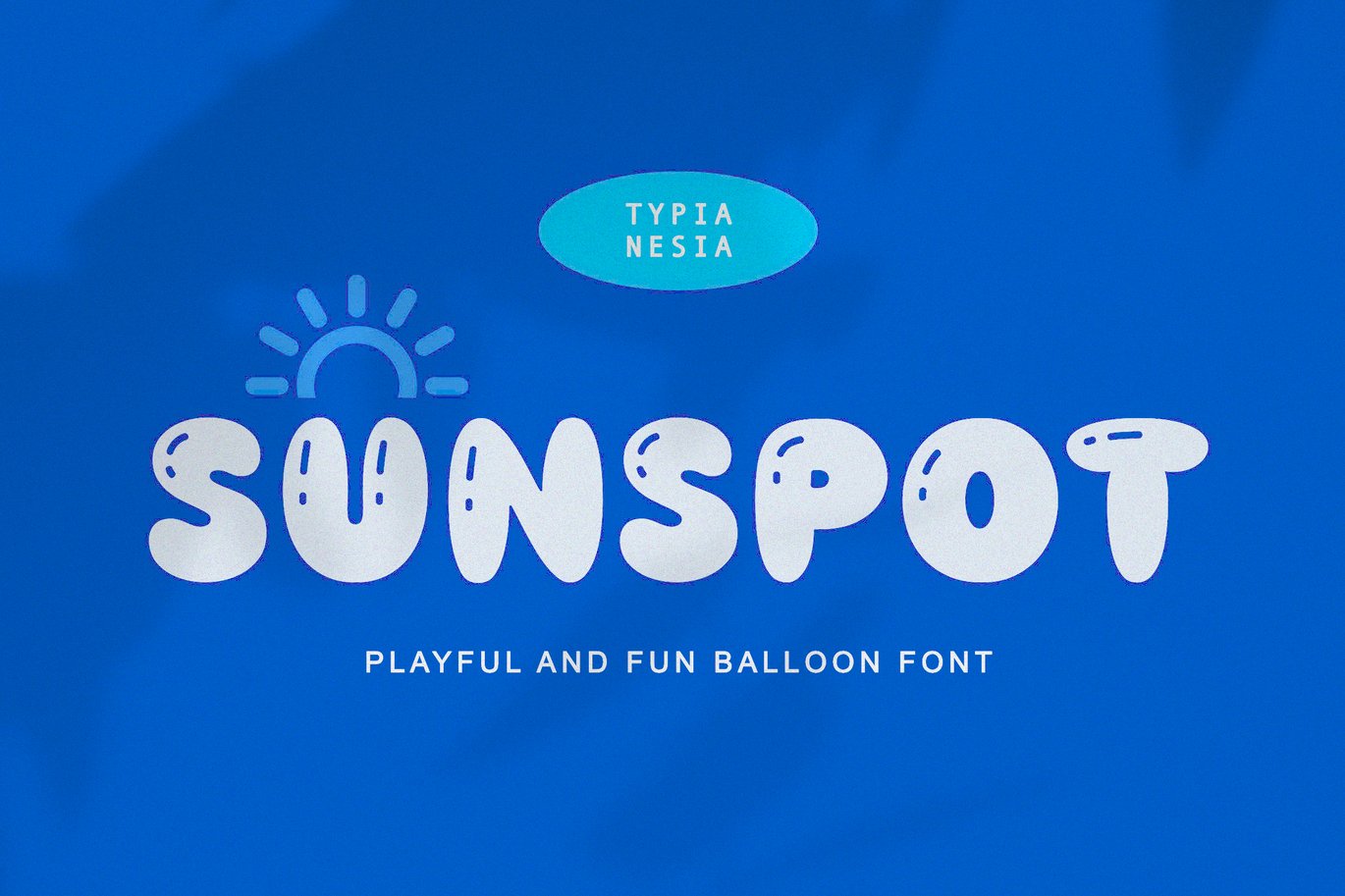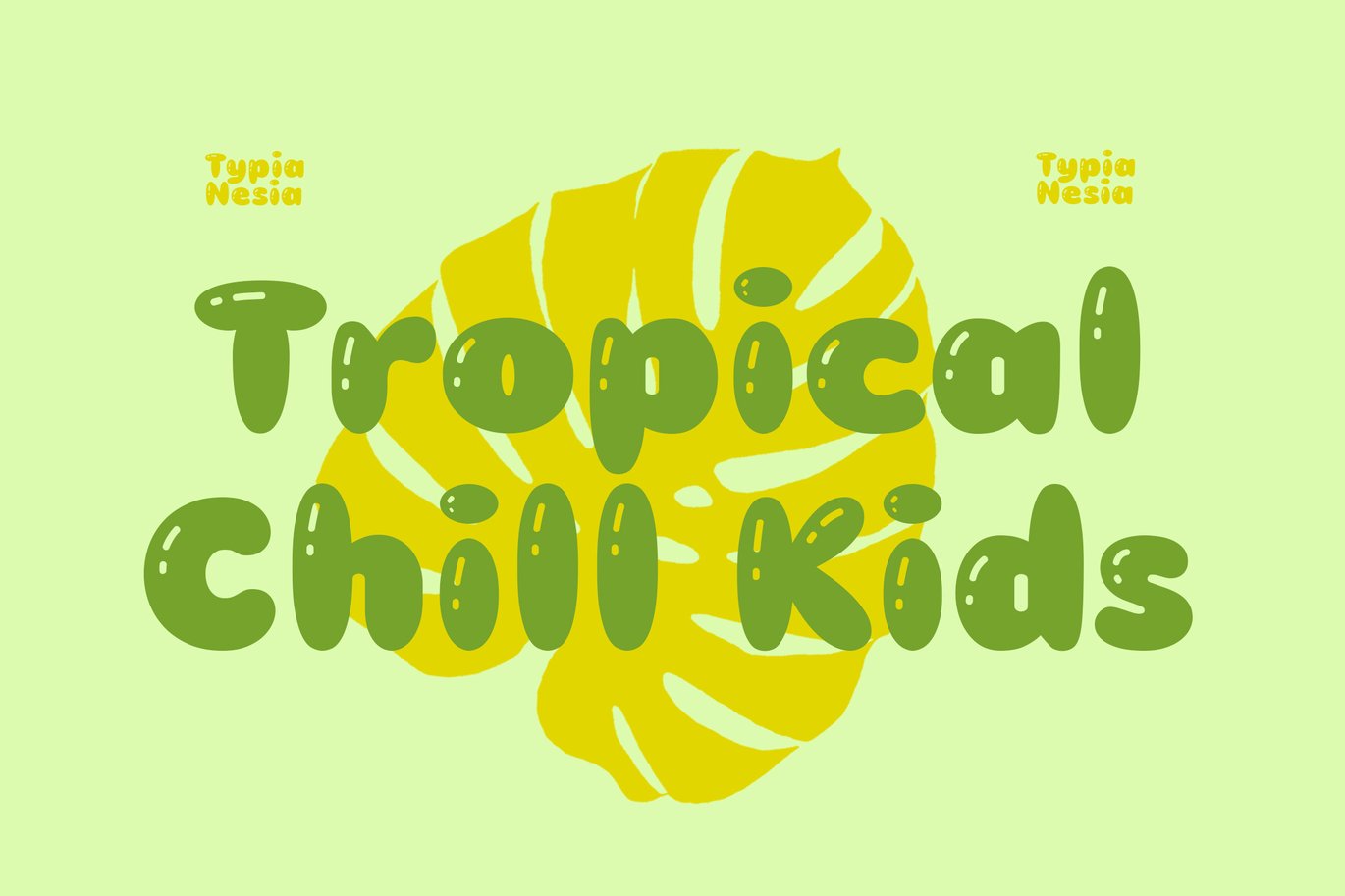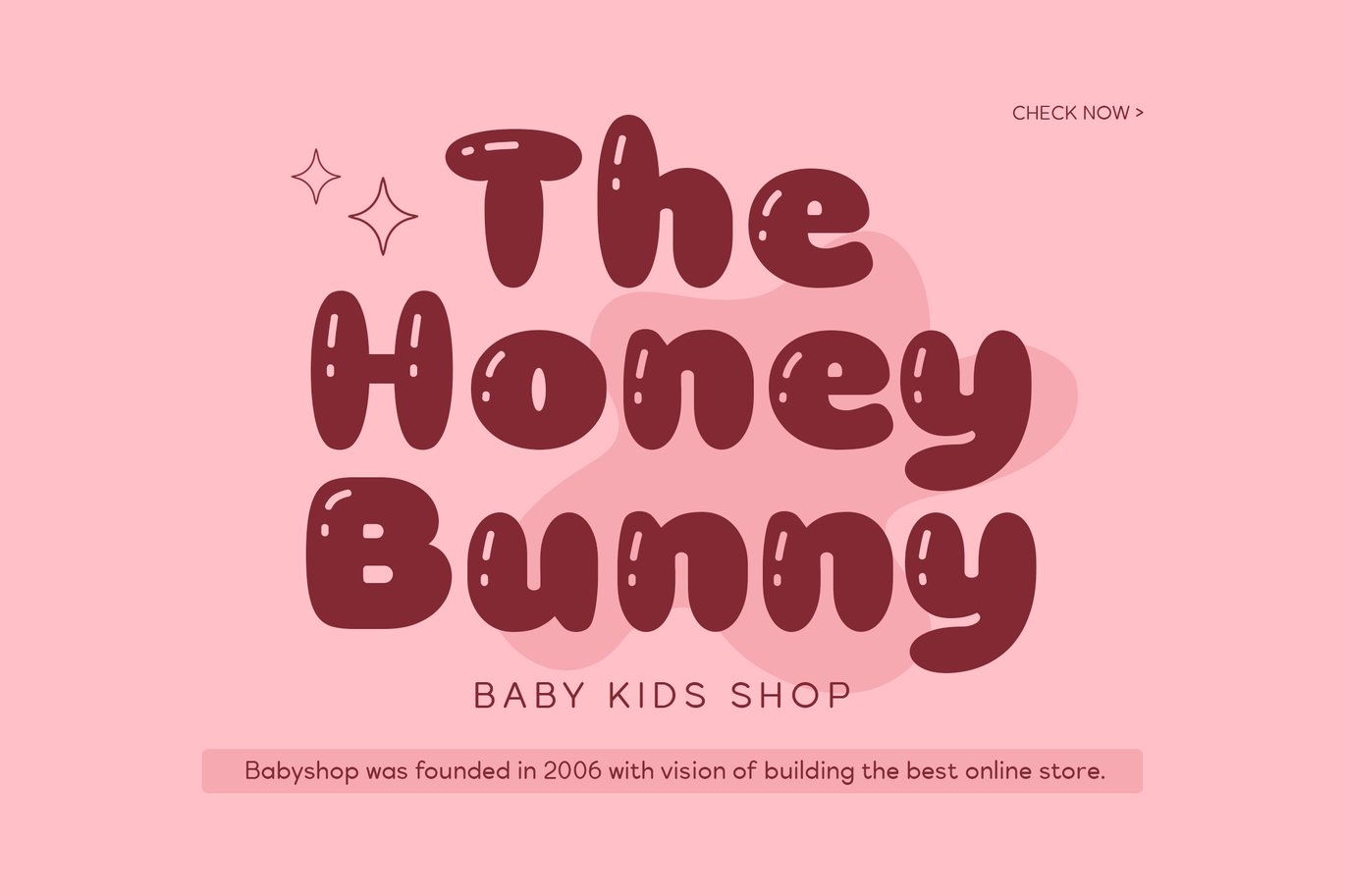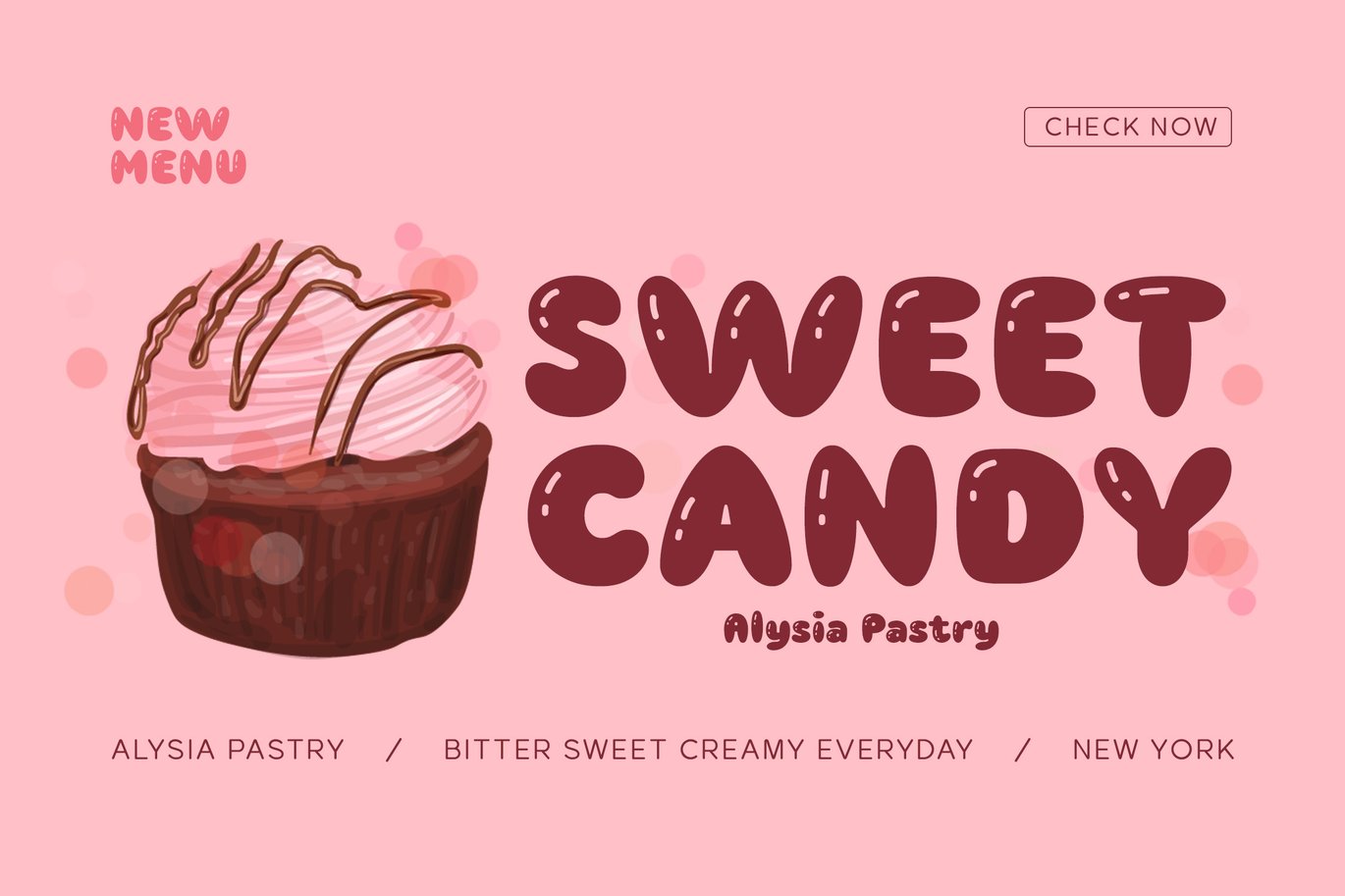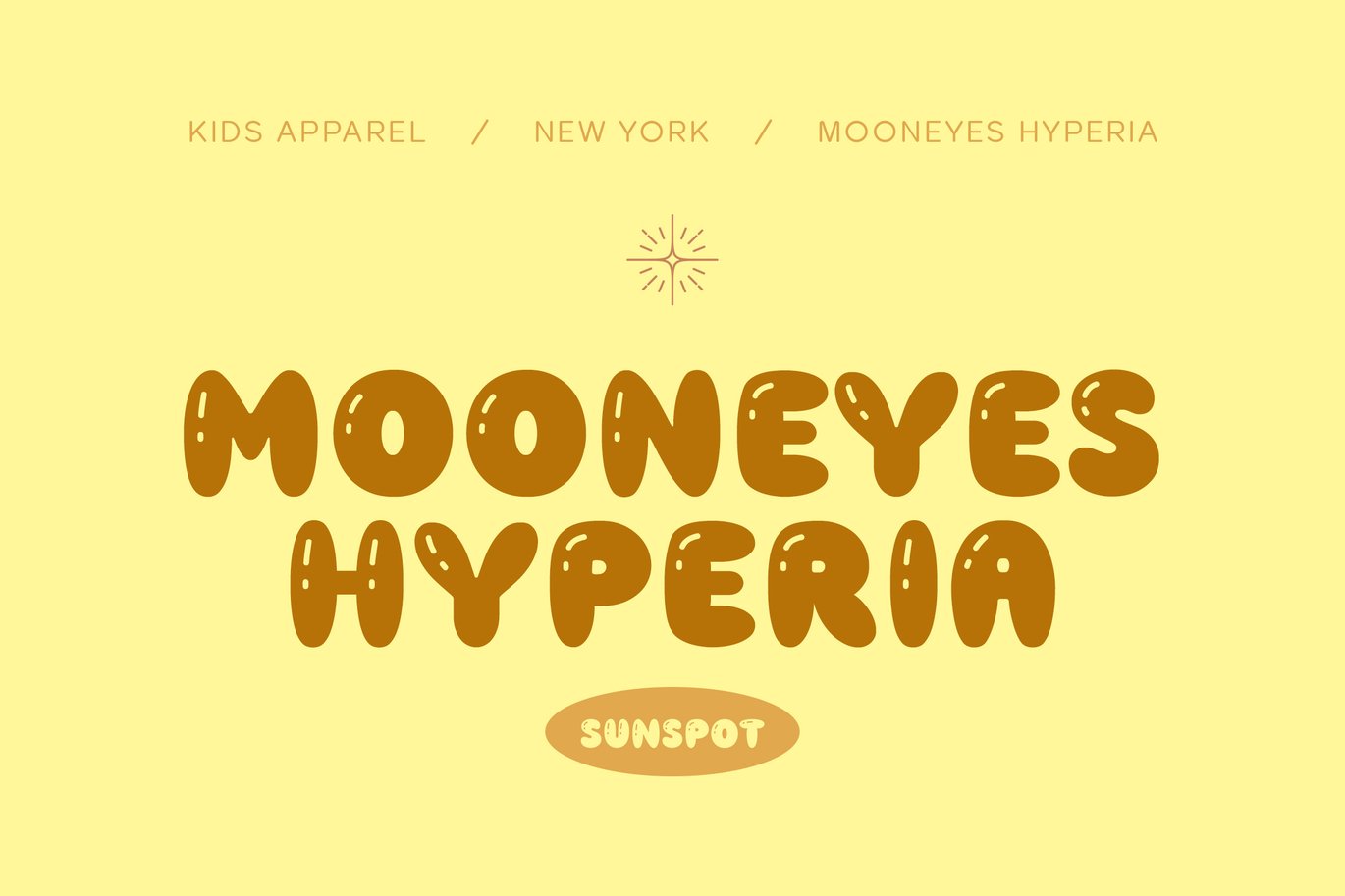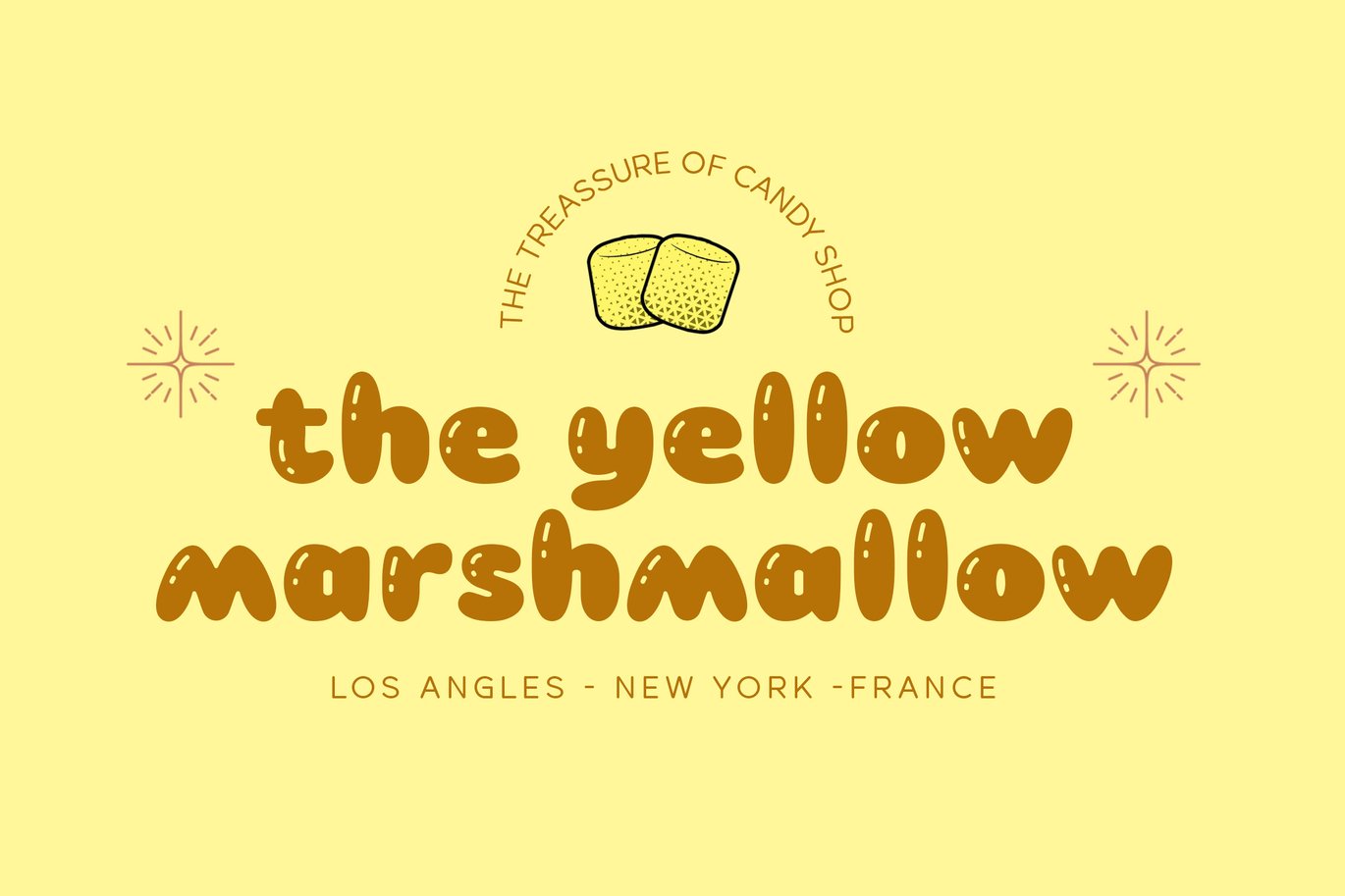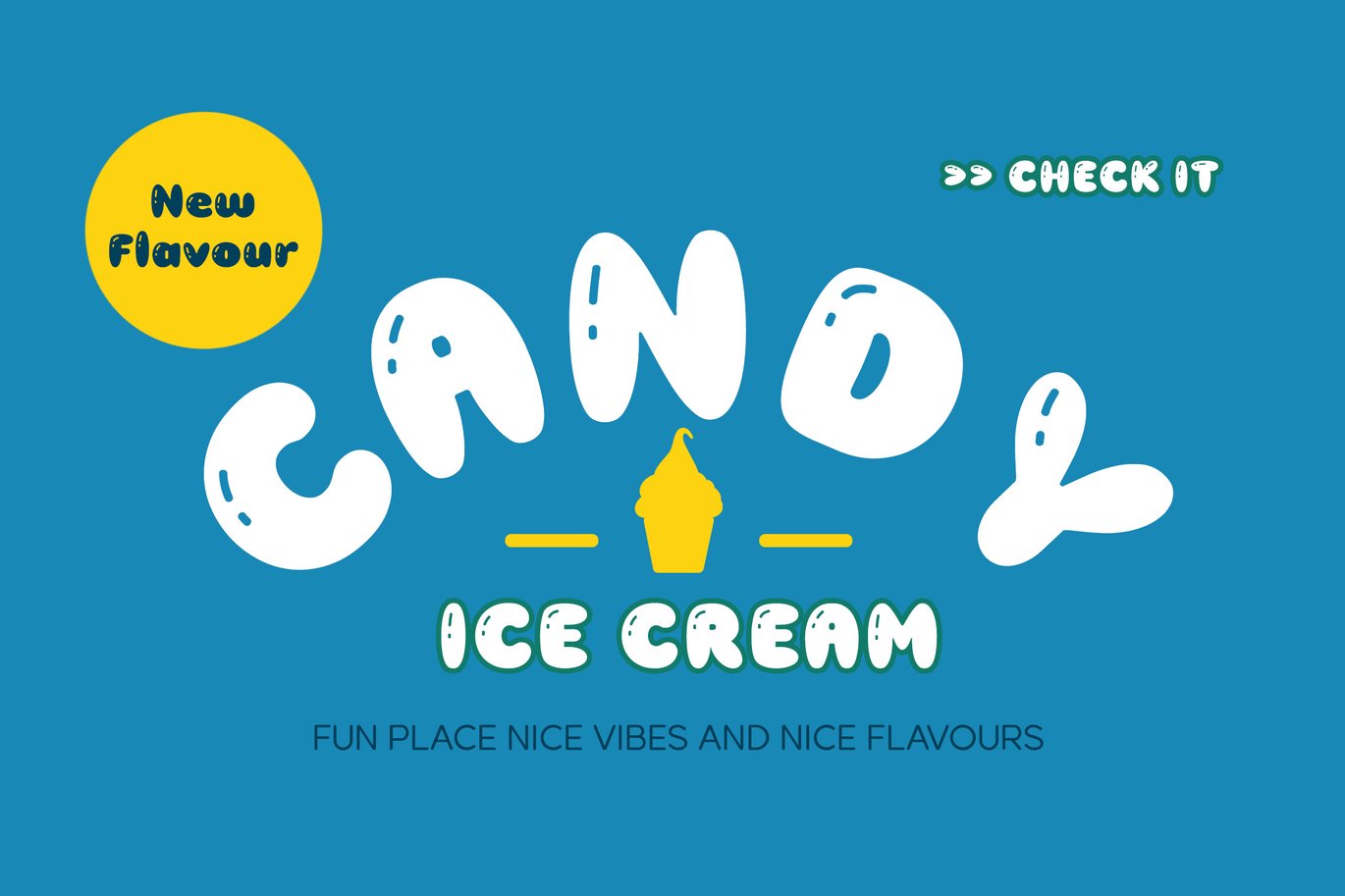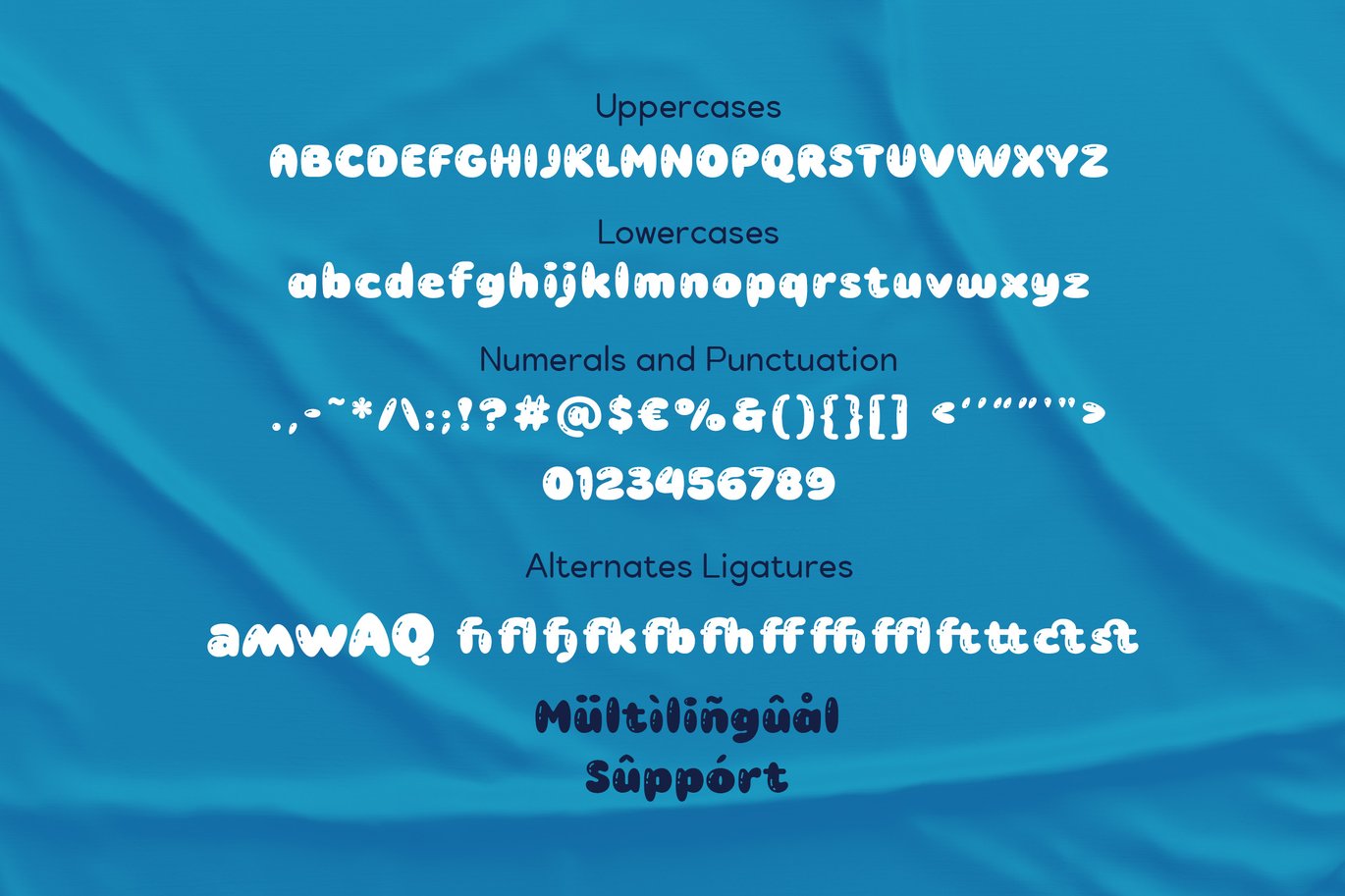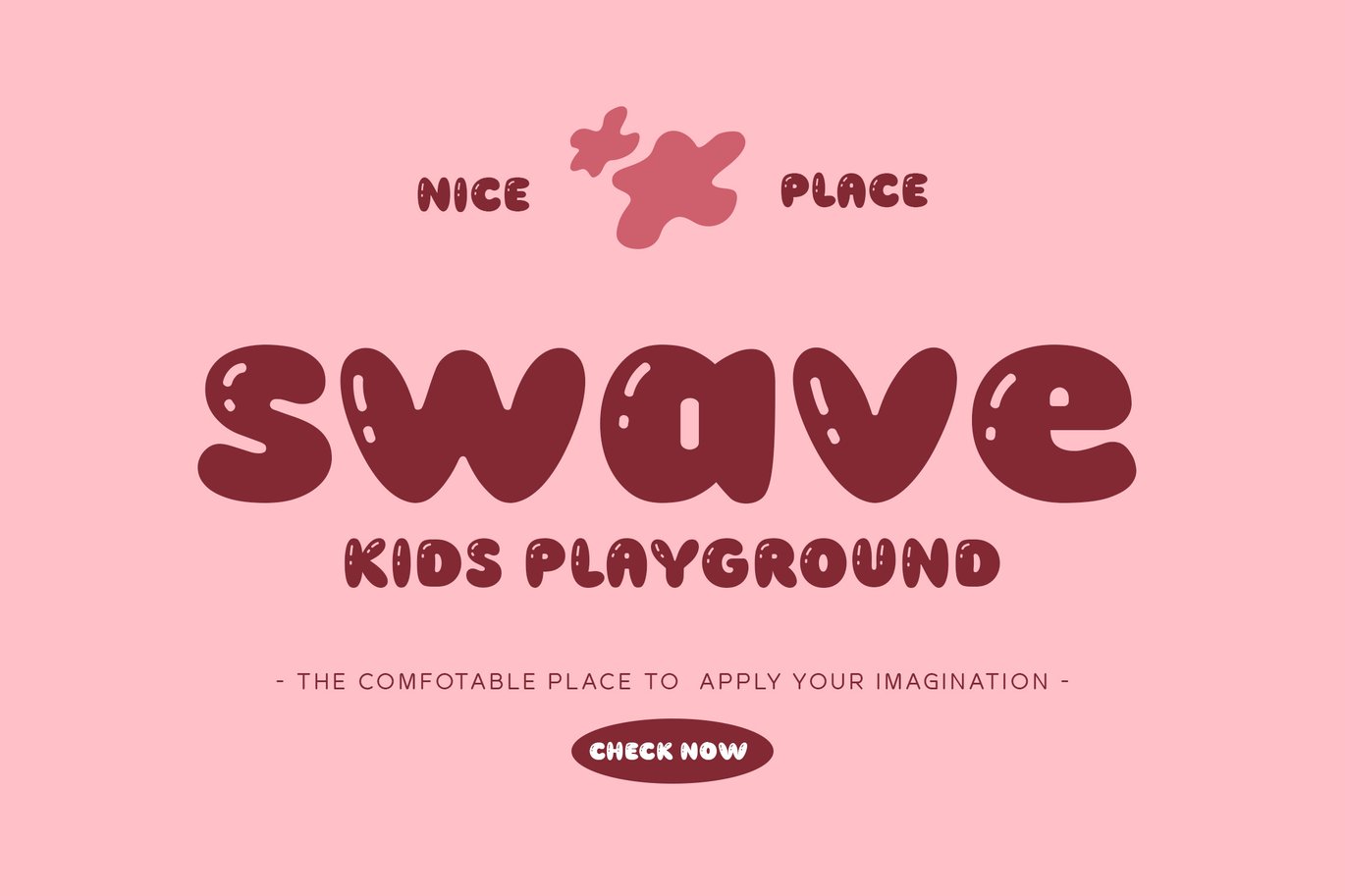
Sunspot – Funny Funky Cute Playful Balloon font
Sunspot – Funny Funky Cute Playful Balloon font – Kid Child Cartoon Bubble Game Display Font
Sunspot balloon font is suitable for any design needs : kid game logo, snack packaging design, kindergarten branding, food & beverage packaging, child kid toys brand, playful advertising design, birthday party, cartoon animation, toys branding, poster quote, kid book / cover title and any design needs.